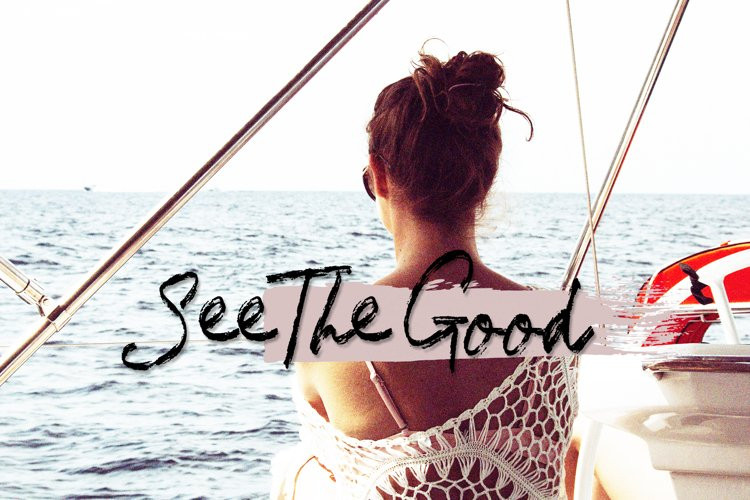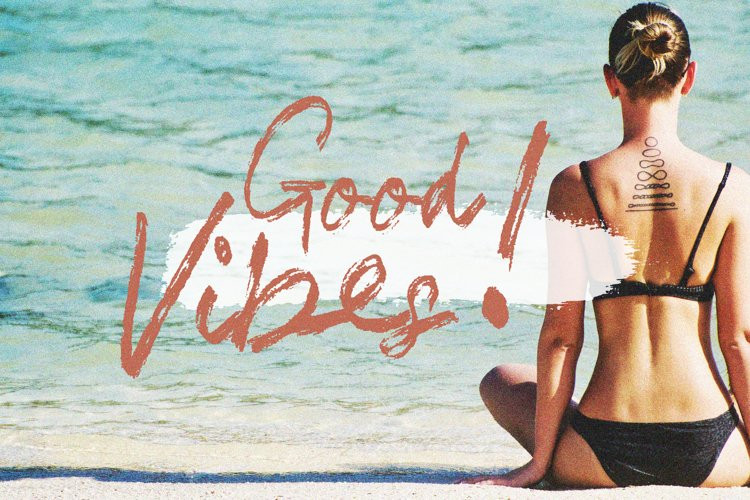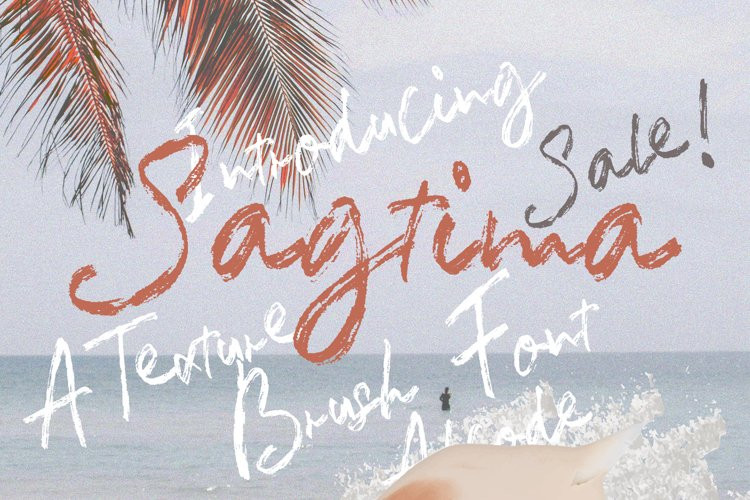
Sagtima Font
Sagtima FontSagtima is an elegant handwitten fontinspired by natural brush typography. Written in rapid motion using a slightly dry brush pen. This will give you a fresh and elegant design. Sagtima comes with uppercase and lowercase lettersnumbers.
Try Sagtima, enjoy the richness of OpenType features and let her fun and elegant excitement make you happy and enhance your creativity! You can use this font very easily.